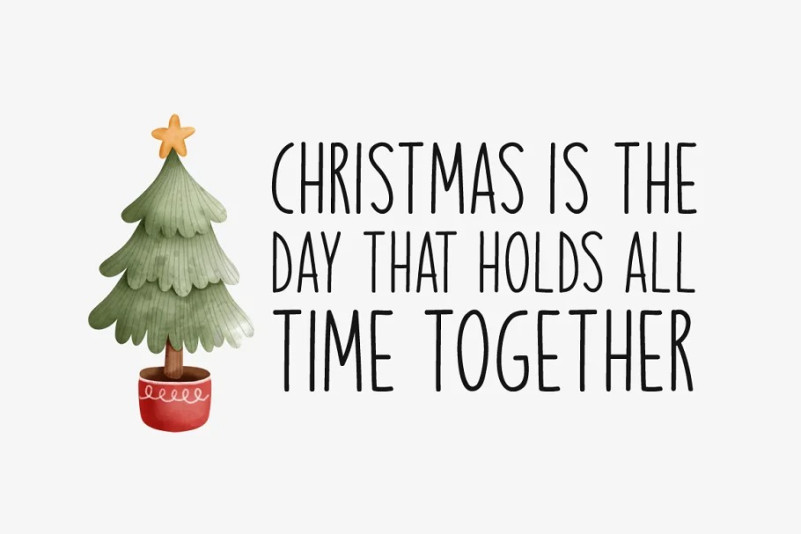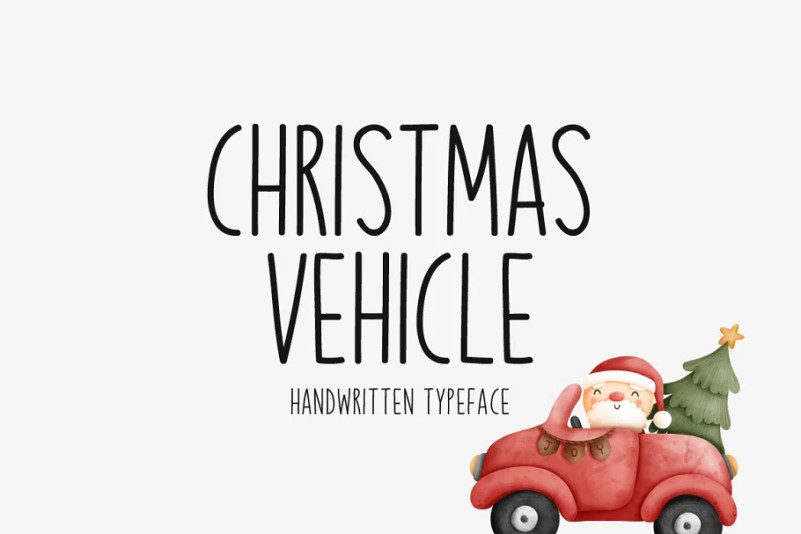
Christmas Vehicle Font
Christmas Vehicle Display Font is a brand new handwritten font. Christmas Vehicle is perfectly suited for stationery, logos, t-shirt, paper, print design, website header, photo frame, flyer, music cover, poster, image slider, and much more.